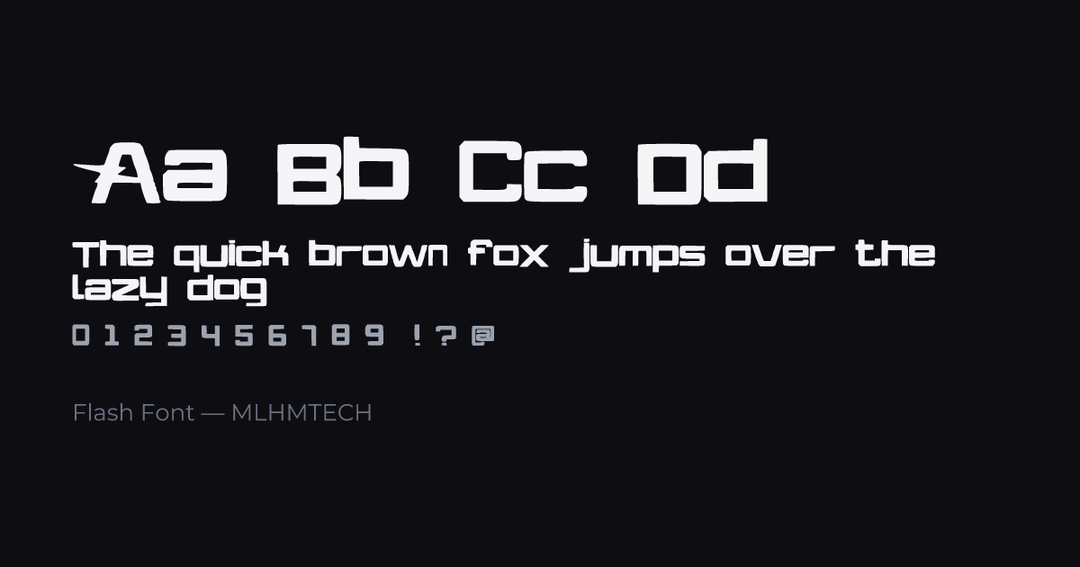
Flash Font
Flash Font is a bold, modern display typeface that adds a dynamic touch to any design. Ideal for headlines, logos, and promotional materials.
Flash Font is a versatile display typeface characterized by its strong, clean lines and contemporary feel. It is designed to make a statement, whether used in large headlines or as a distinctive logo element. The font's geometric structure ensures excellent legibility even at smaller sizes, making it suitable for both print and digital applications.
This handpicked font is part of a curated collection, ensuring high quality and uniqueness. Its bold weight and modern aesthetic make it a great choice for projects that require a confident and energetic look. Use it to create impactful titles, eye-catching posters, or to give your brand a memorable identity.